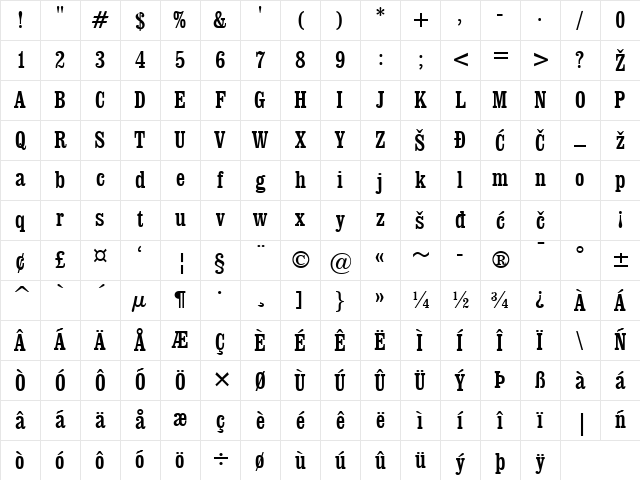
ClarendonCond Regular
ClarendonCond Family
Design Context for ClarendonCond
ClarendonCond features prominent, blocky serifs that give it a confident, grounded presence - equally at home in editorial settings and bold branding work. Its narrow stance lets it pack a punch even in space-constrained designs.
Pro Tip: Use ClarendonCond for headlines and subheadings where its slab serifs can make an impression. It also holds up well in mid-size body copy thanks to its sturdy construction.